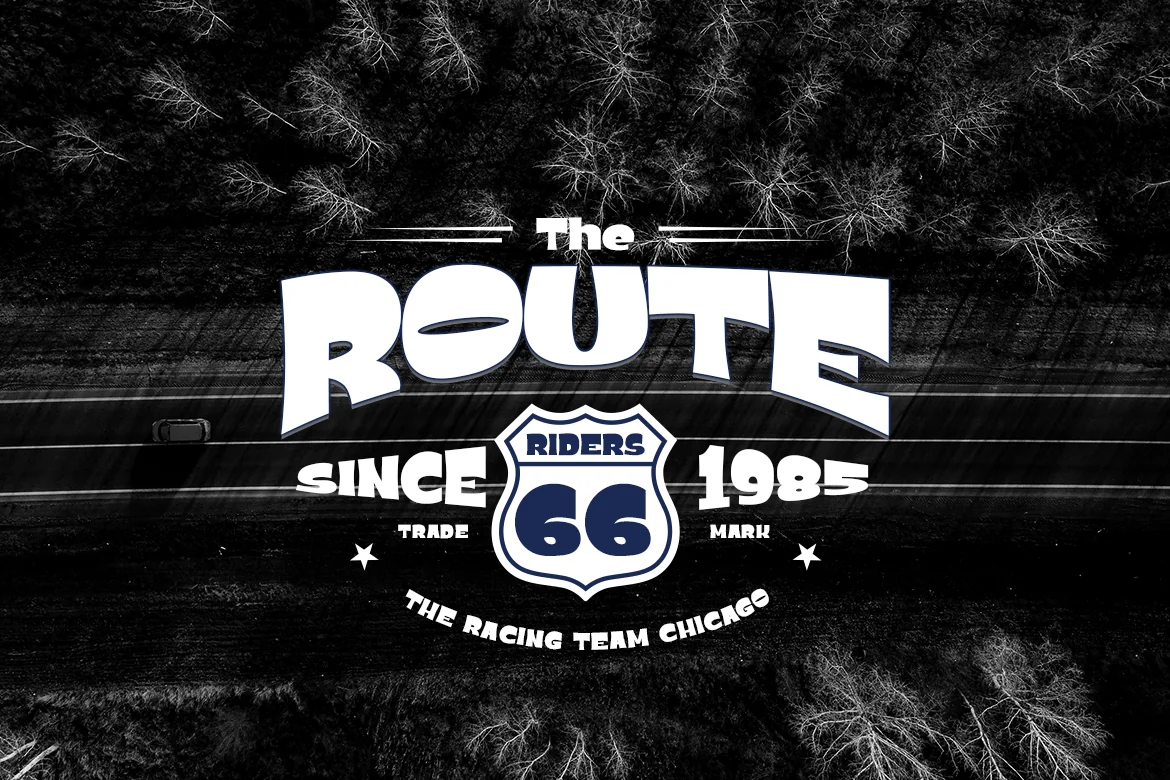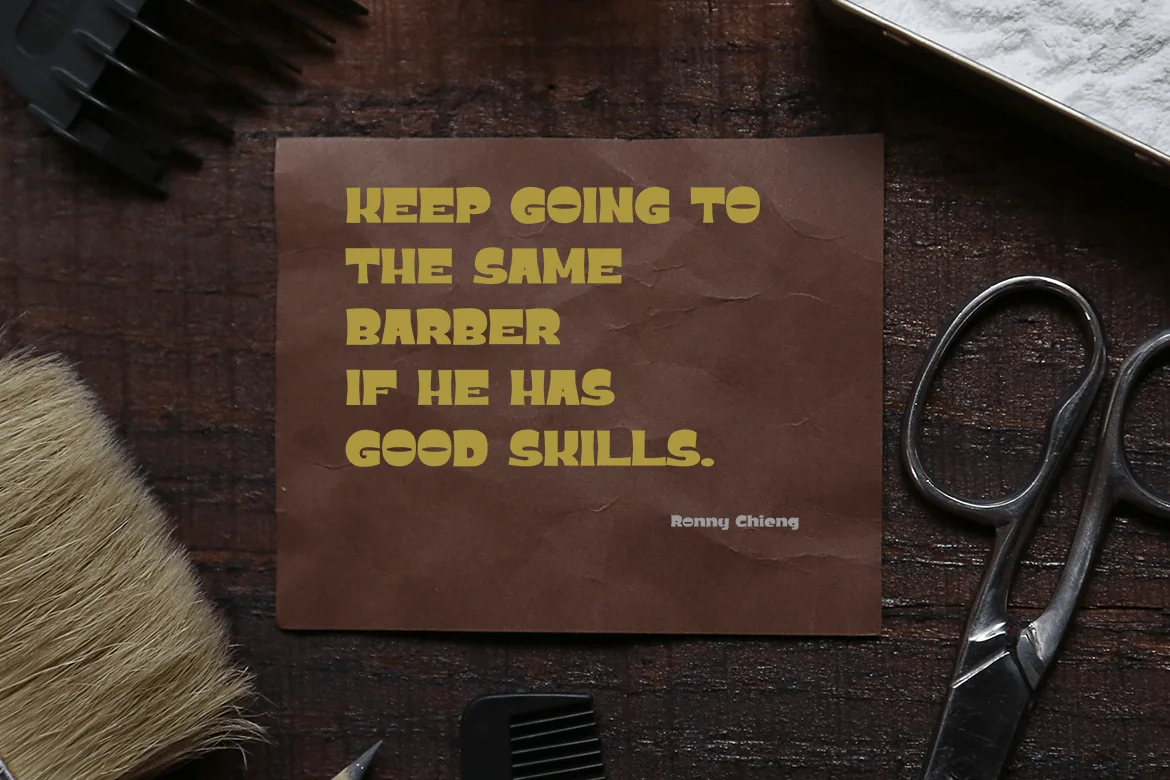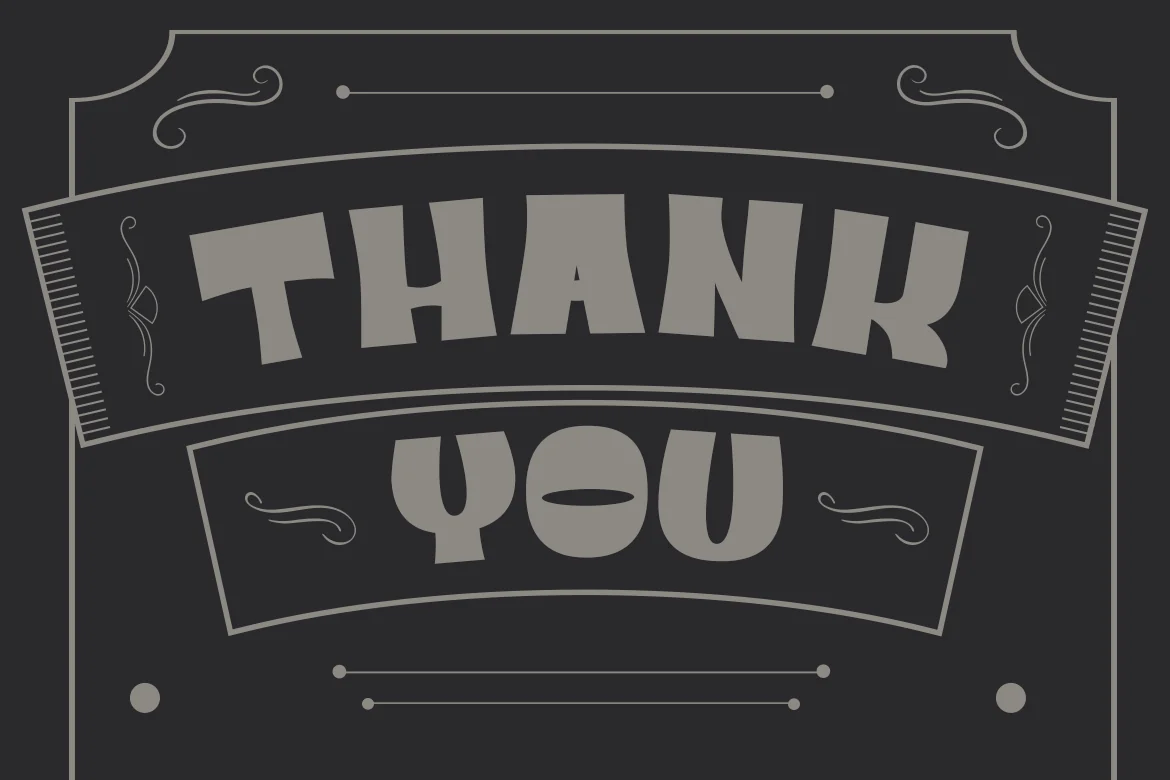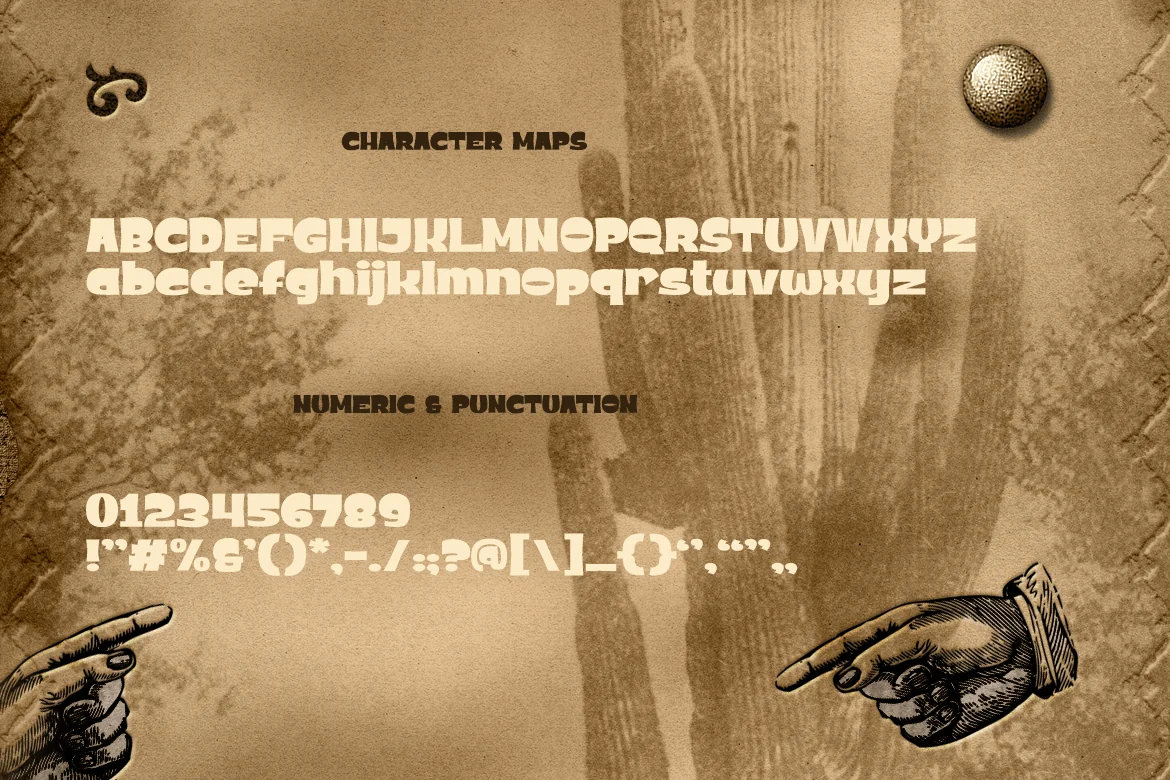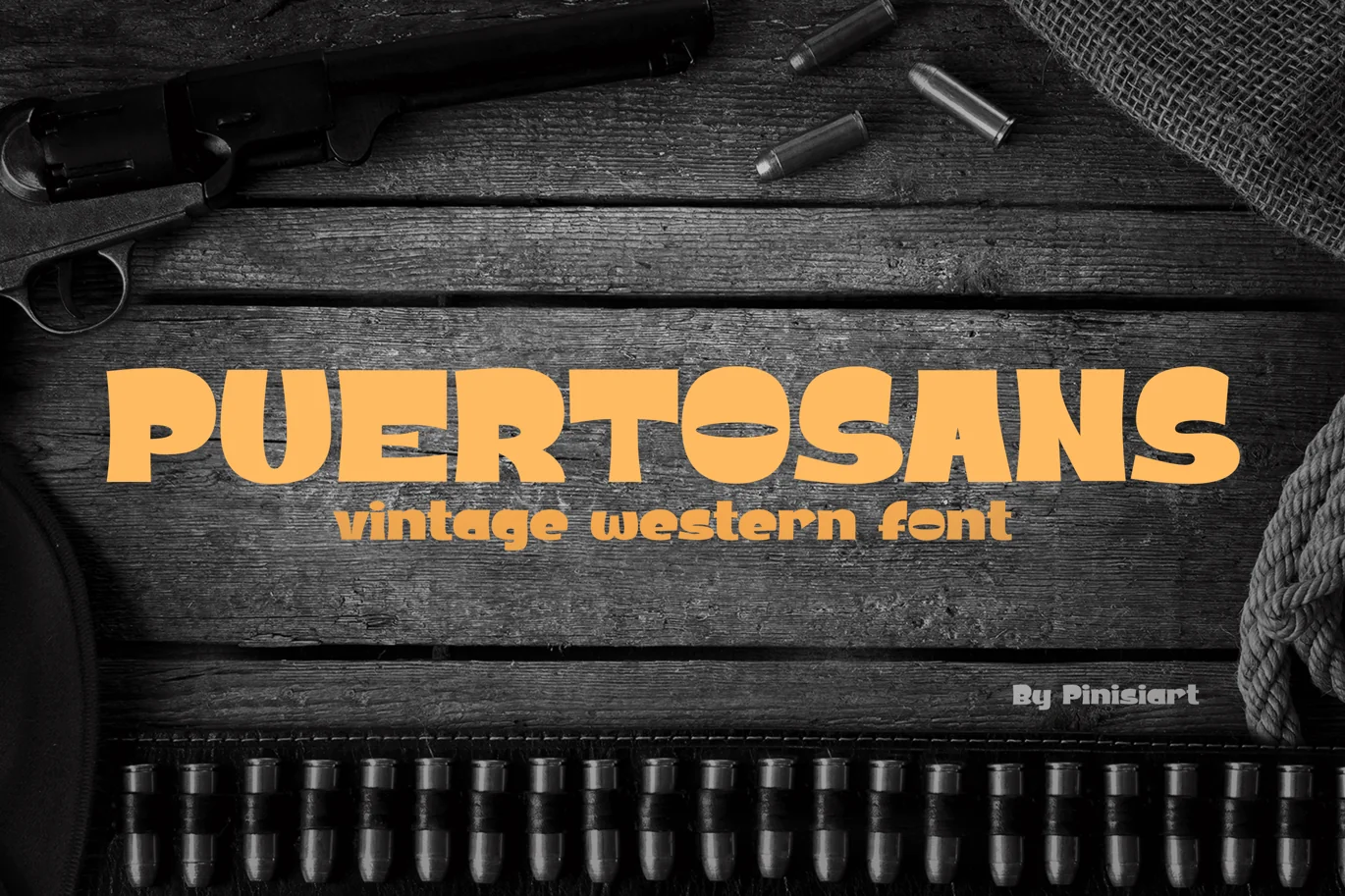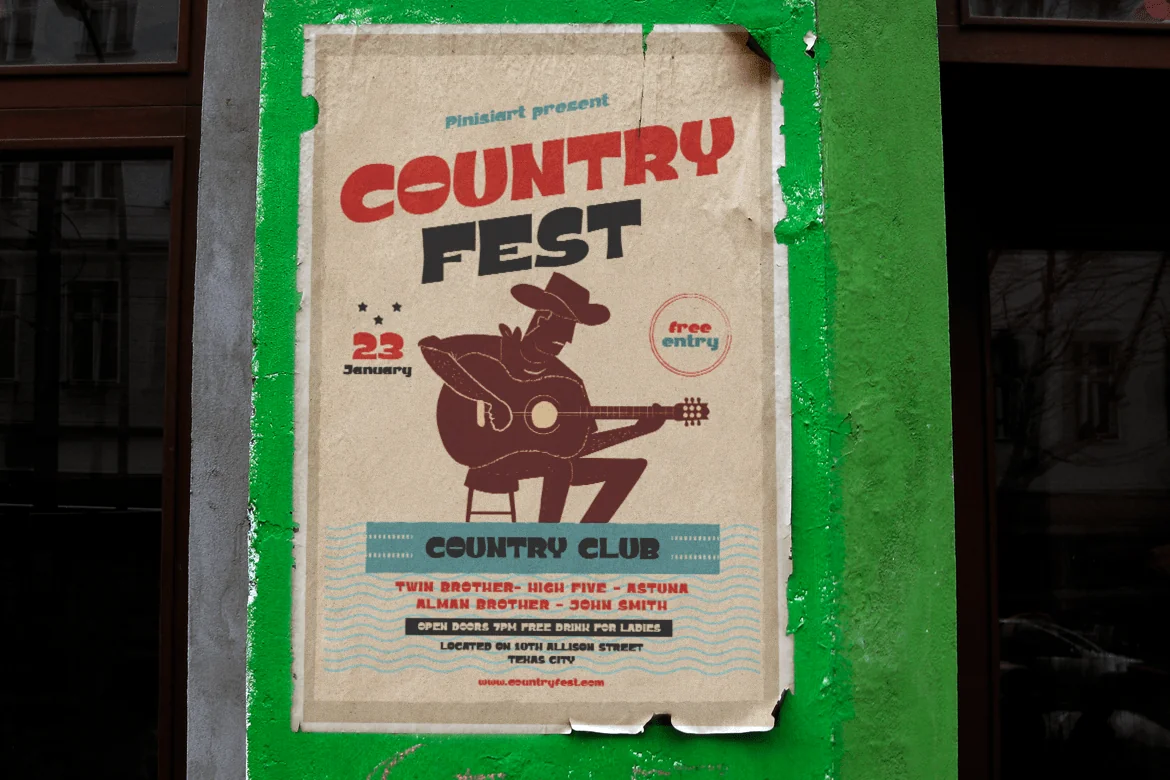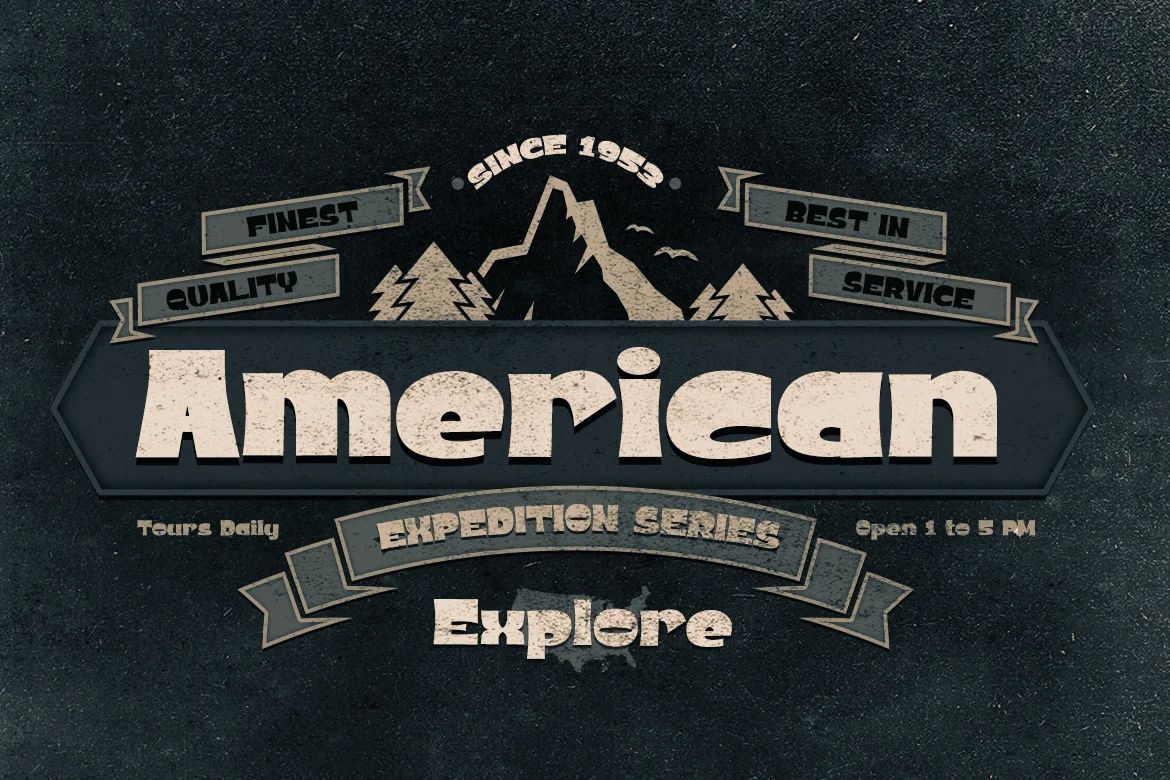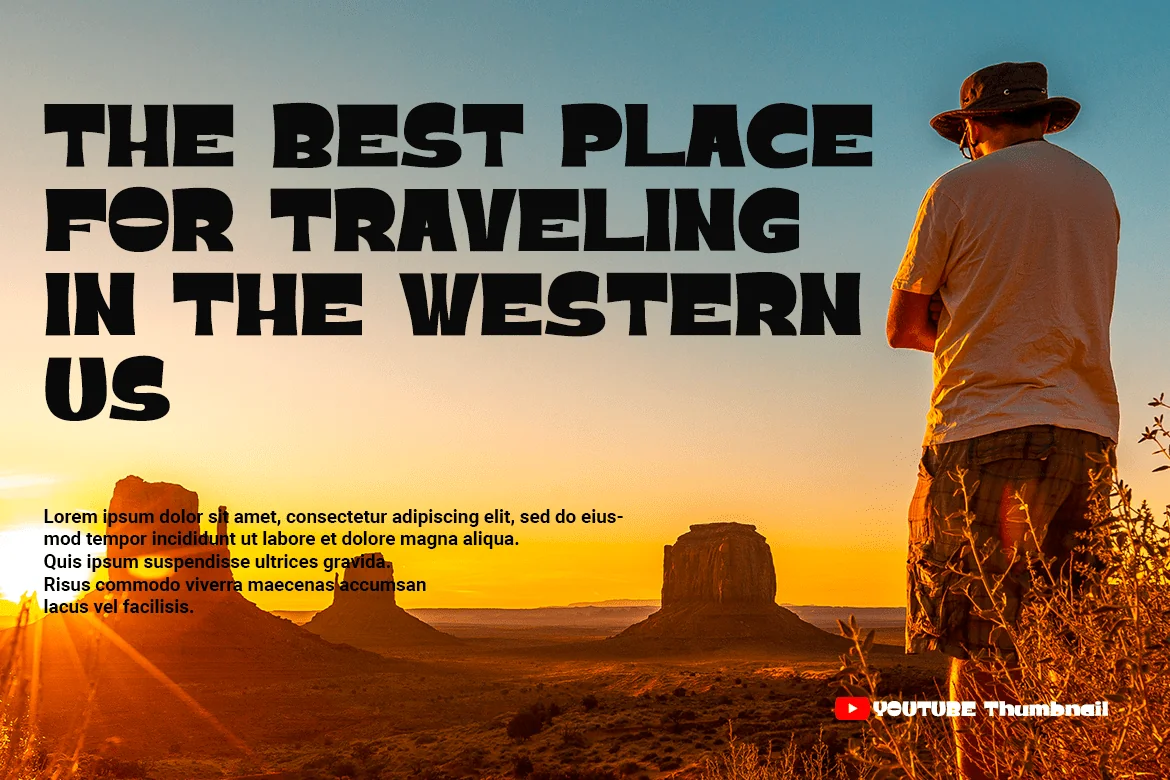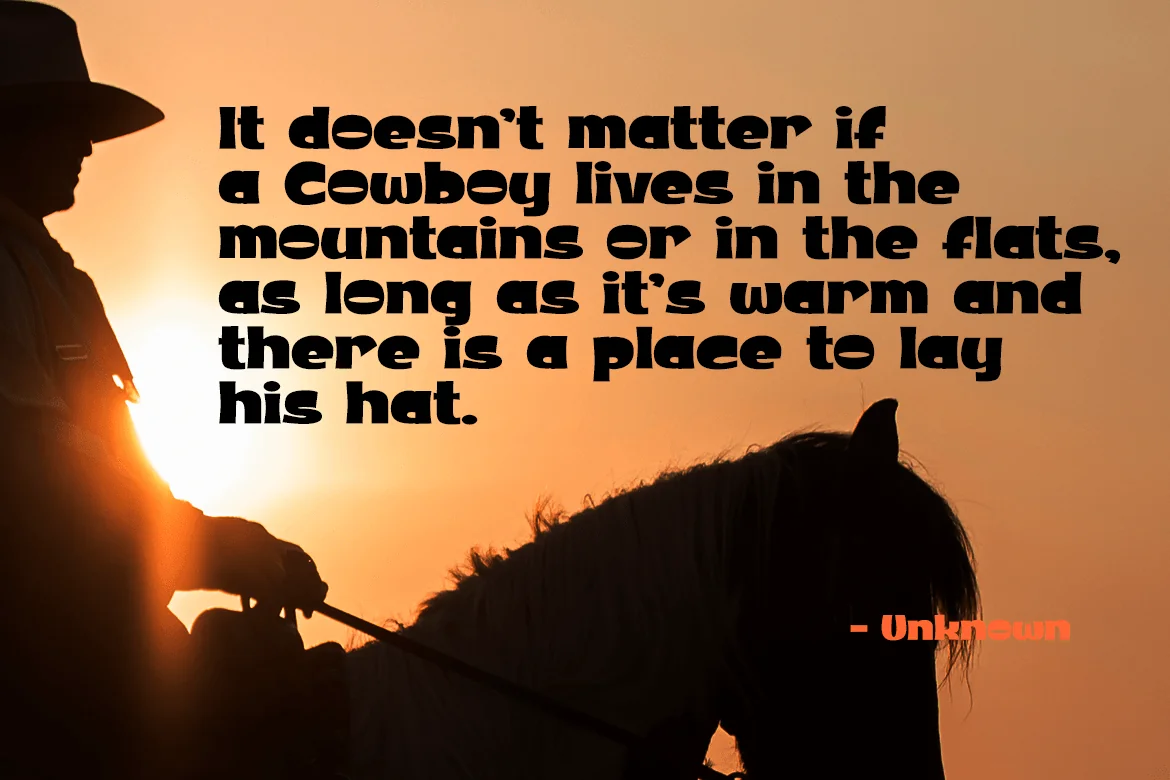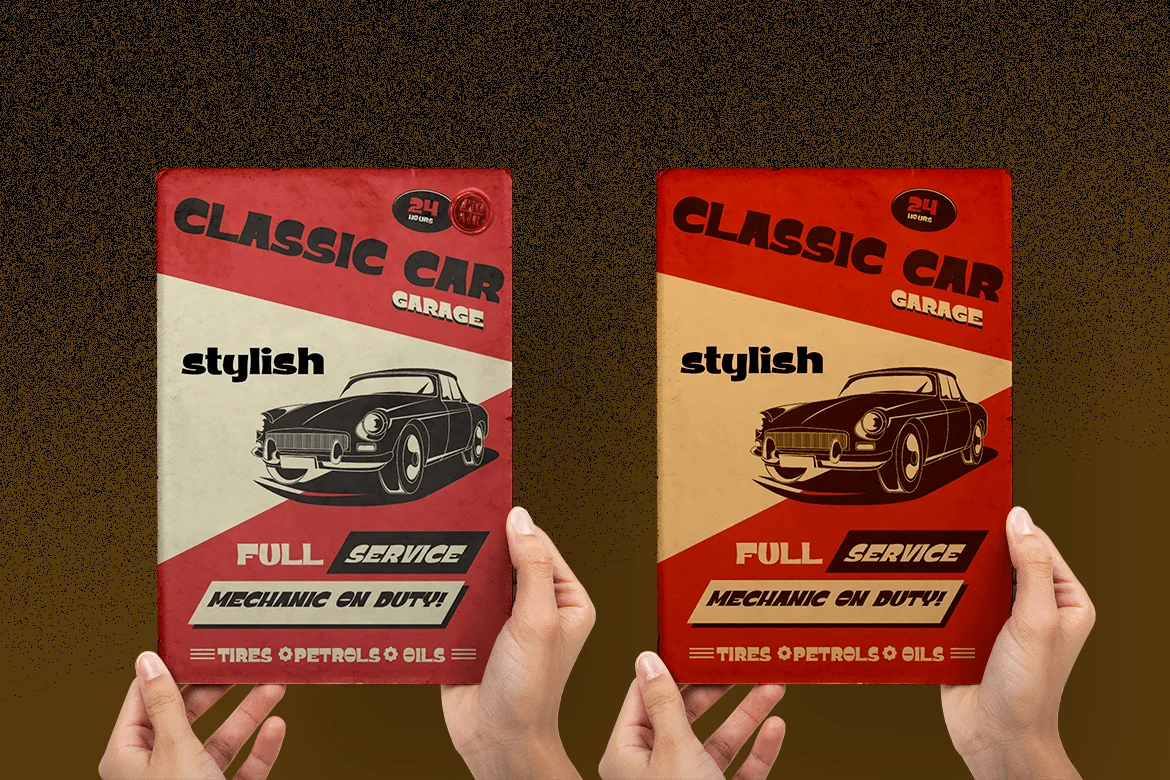
POERTOSANS – Vintage Western Font
Big and bold, and may break the bones. PUERTOSANS bring back that dry and dusty western world in a glance.
Suit perfectly for western themes books market, cowboy theme online games, stationary, school supplies font, poster, birthday invitation, youtube covers, youtube thumbnails, social media page covers and so on…